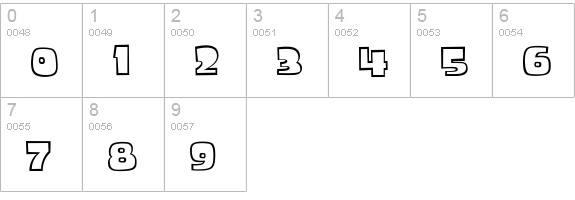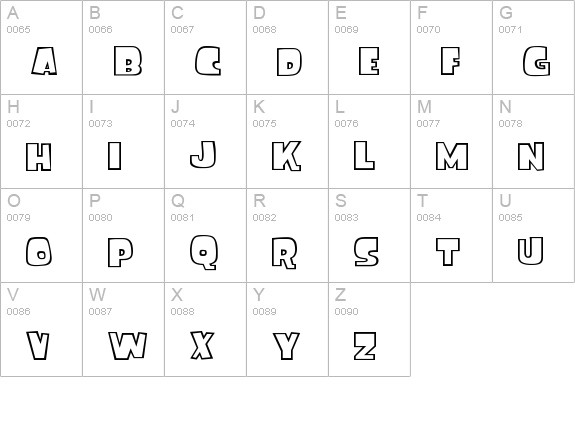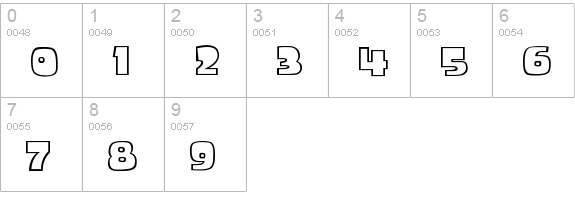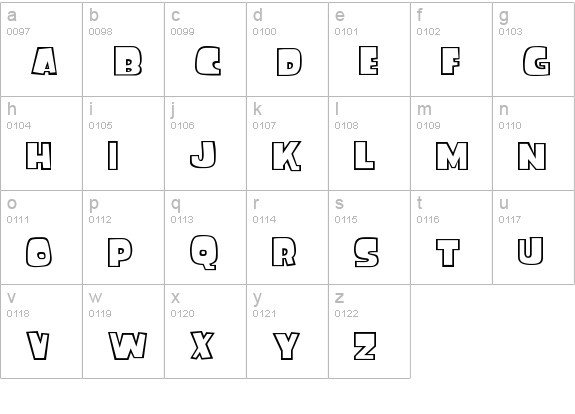
Fink Gothic is a striking and versatile font that combines a modern aesthetic with a touch of vintage charm. Its bold and angular letterforms make a bold statement while still remaining highly legible. This typeface is perfect for adding a touch of sophistication to any design project, whether it be for branding, marketing materials, or creative works.